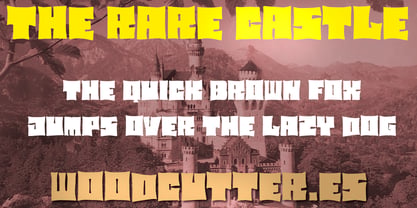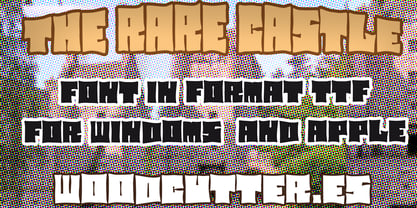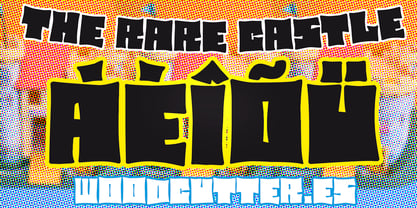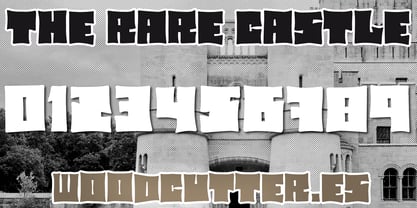
The Rare Castle
by Woodcutter
The The Rare Castle Font Family was designed by Jordi Manero and published by Woodcutter. The Rare Castle contains 1 styles. More about this family
“The Rare Castle” is an uppercase typeface with accents, characterized by extra square, solid letters crafted in a completely handmade style. Its design features thick and bold strokes, giving it a strong and imposing appearance. The angular shapes and uniform proportions provide a contemporary feel with an artisanal touch. This font is ideal for bold headlines, striking logos, or designs that require a strong and assertive style. Its aesthetic balances simplicity and strength, making it a versatile choice for impactful graphic projects.
Designers: Jordi Manero
Foundry: Woodcutter